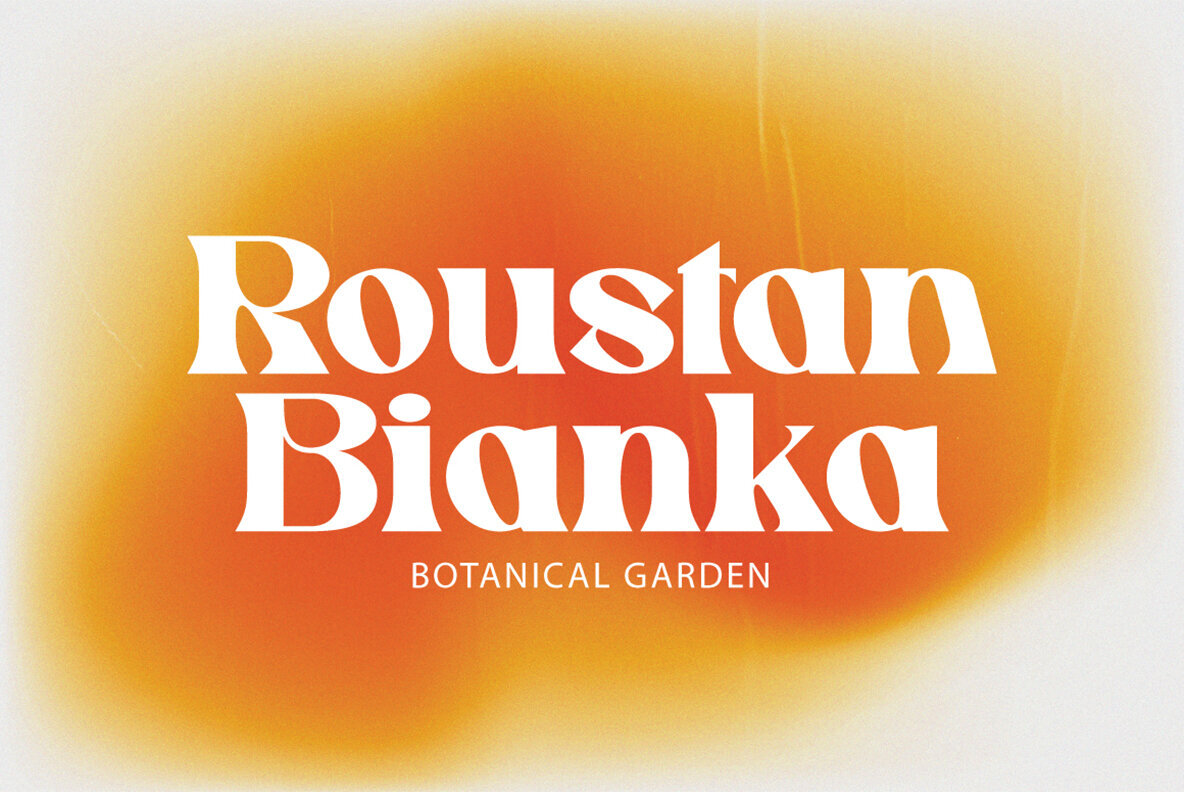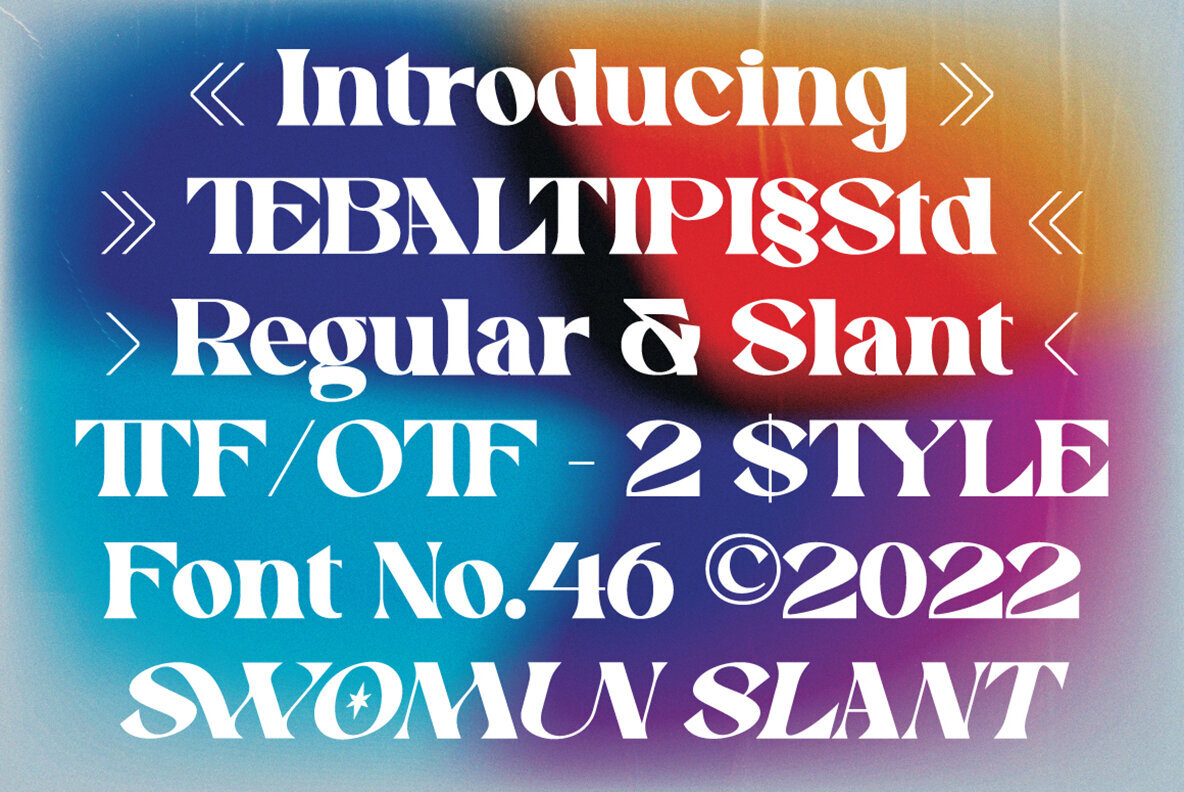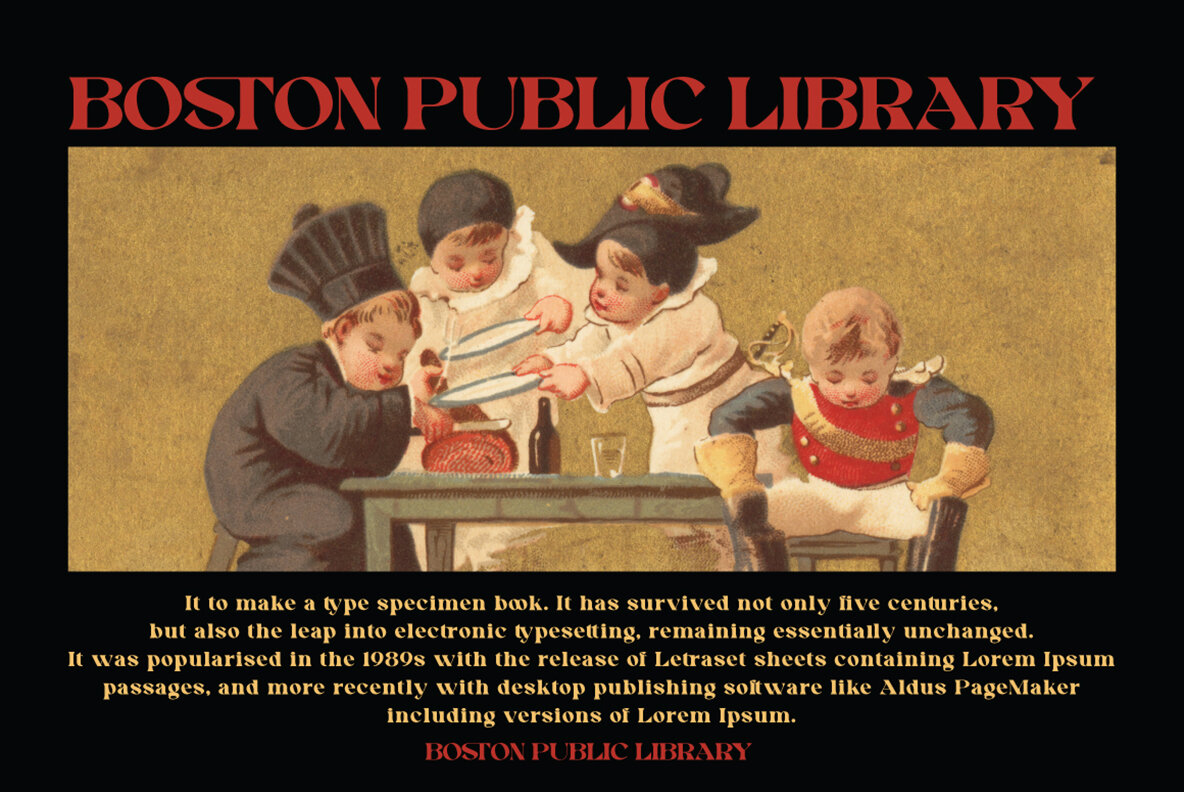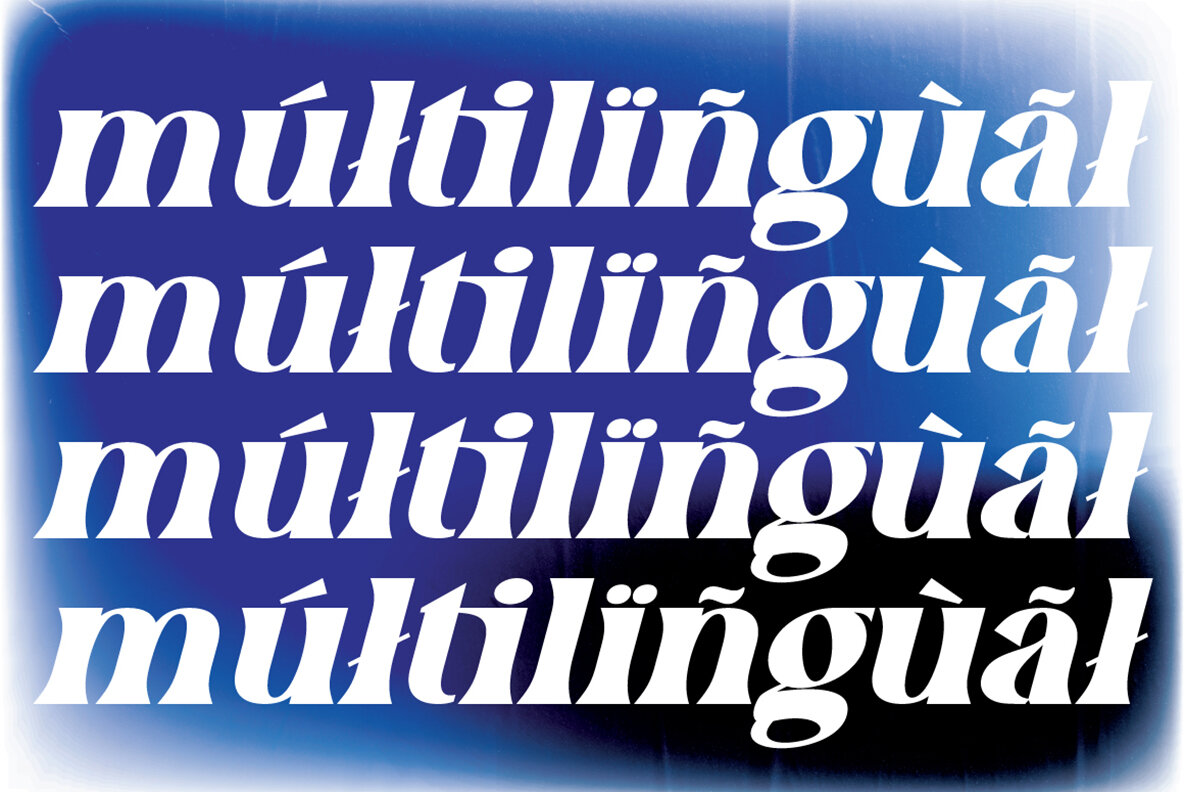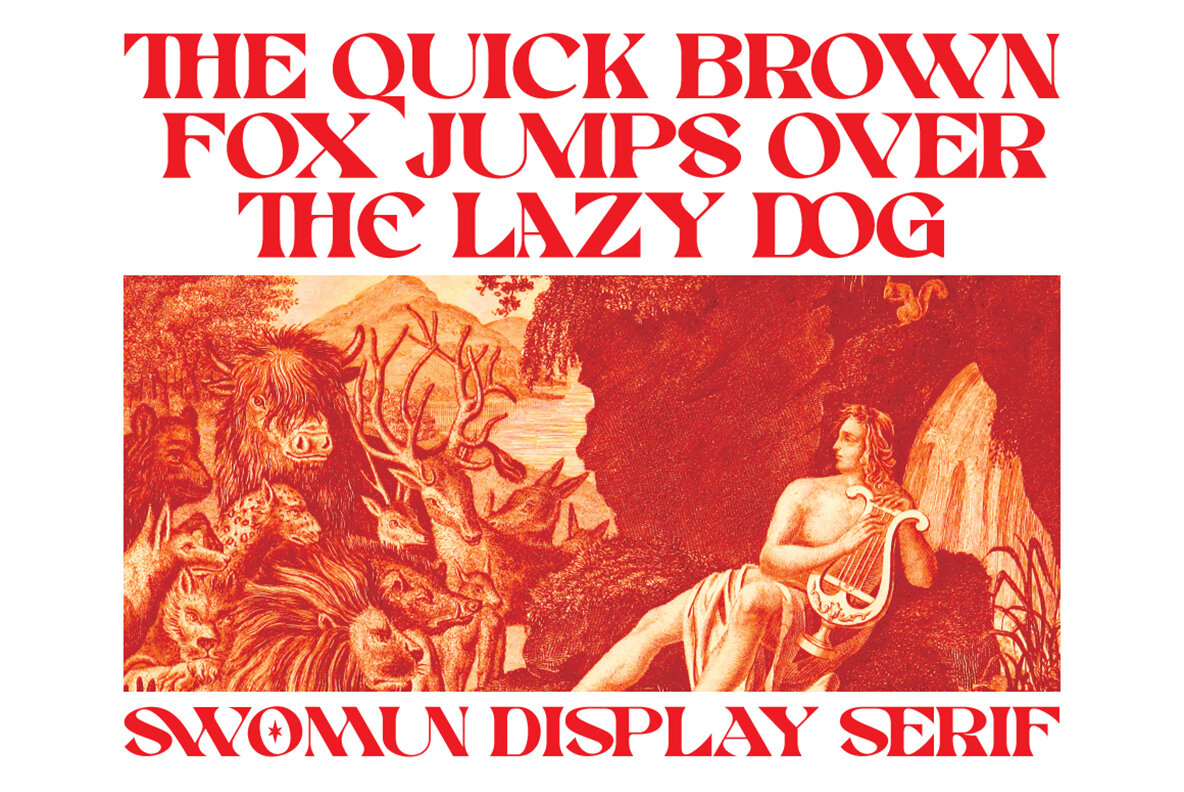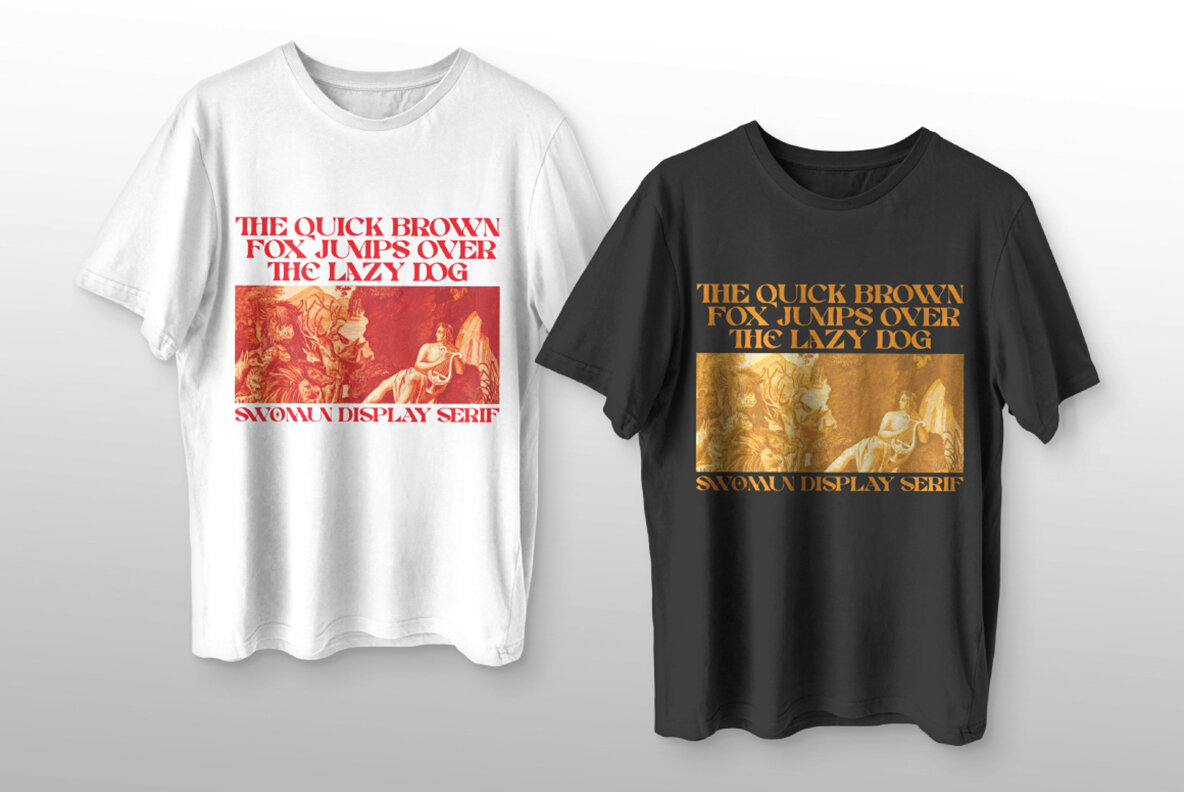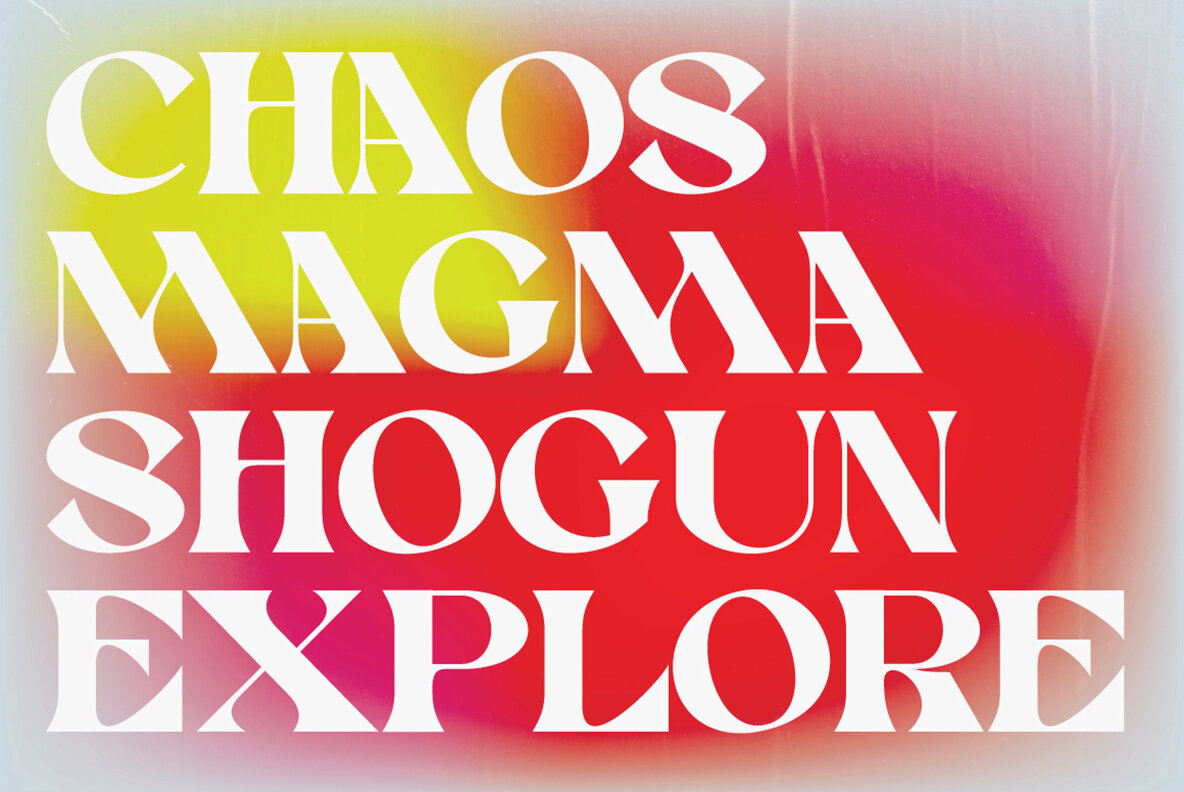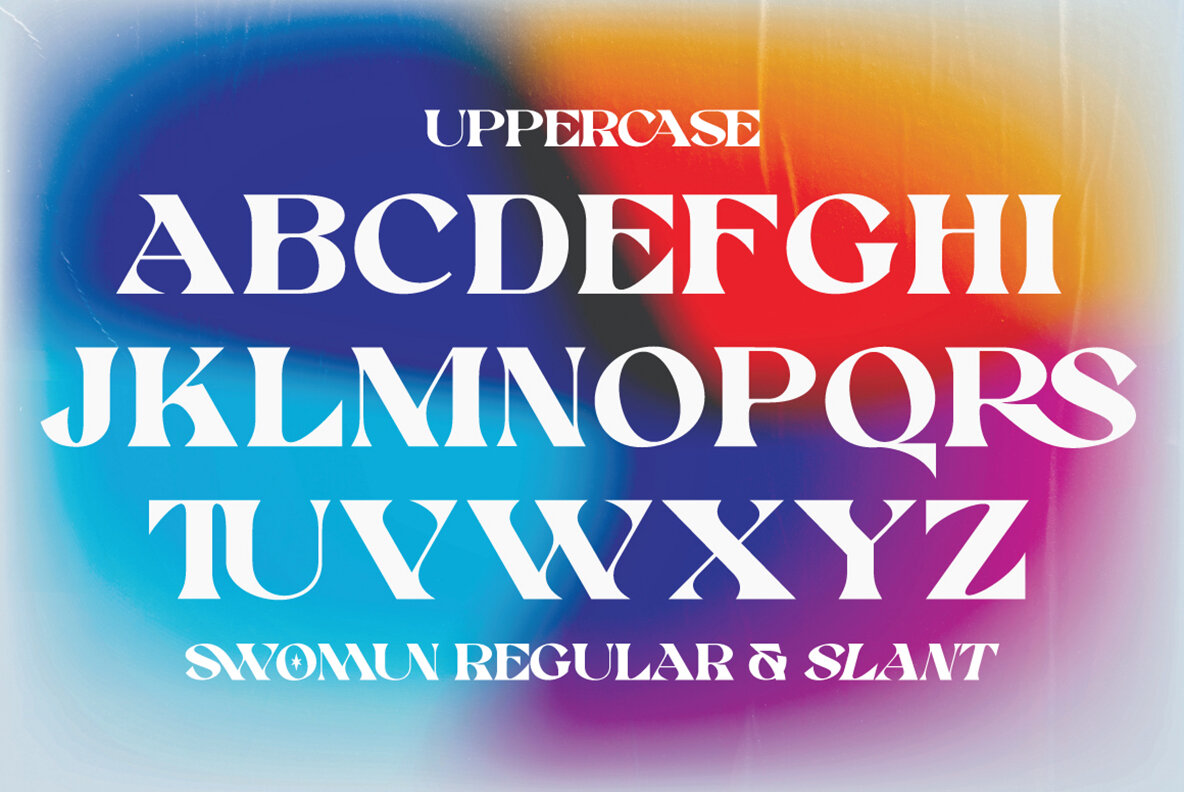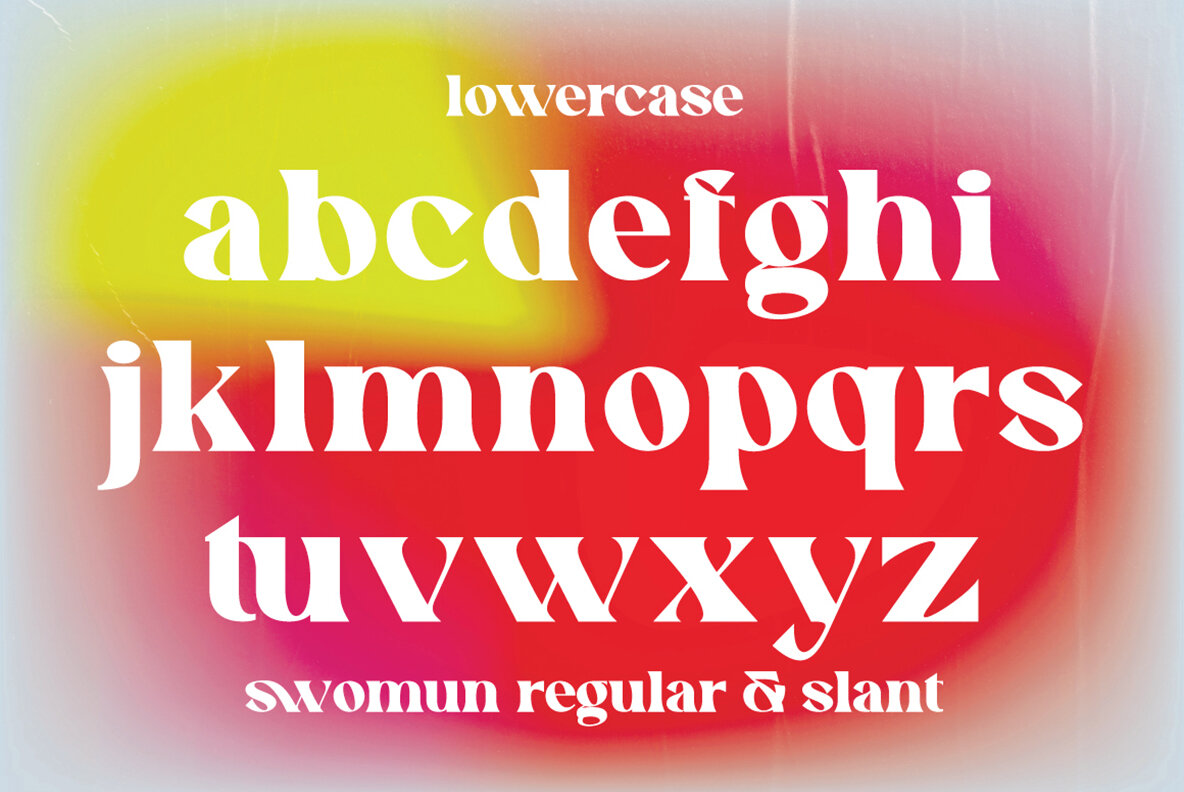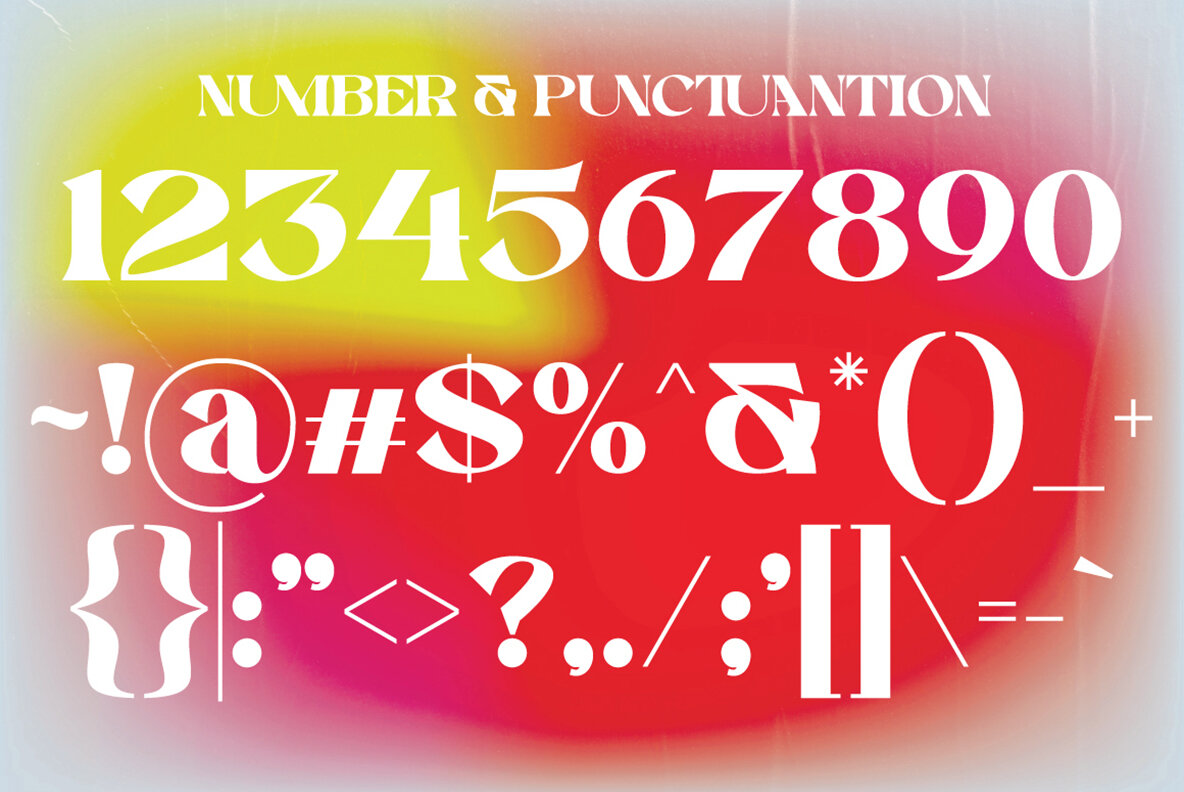
Swomun Font
Swomun is a fresh and modern serif typeface characterized by its strong style and dancing baseline. It adds elegance to invitations such as greeting cards and enhances branding materials, business cards, quotes, posters, and more. Swomun Display Typeface is designed to be both impactful at large display sizes and easy to read in smaller text sizes. Its sharp triangular serifs and distinctive letterforms make it ideal for logo design and impressive in editorial contexts.